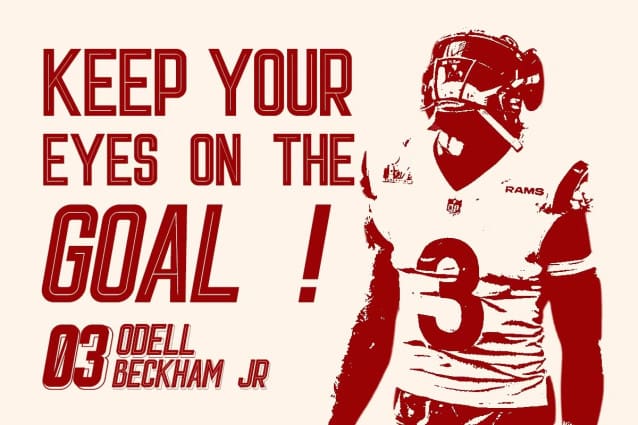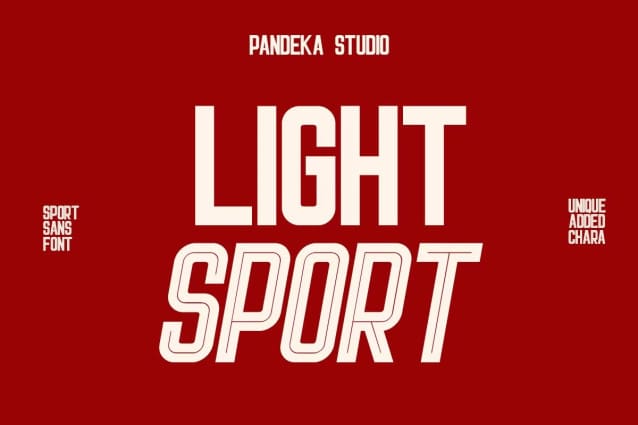
Light Sport Font
Light Sport Font – Sans sport with added unique characters. Ideal for logos, bold action graphics, and sporty designs, LightSport is perfect for baseball themes, technology, and action-packed projects.